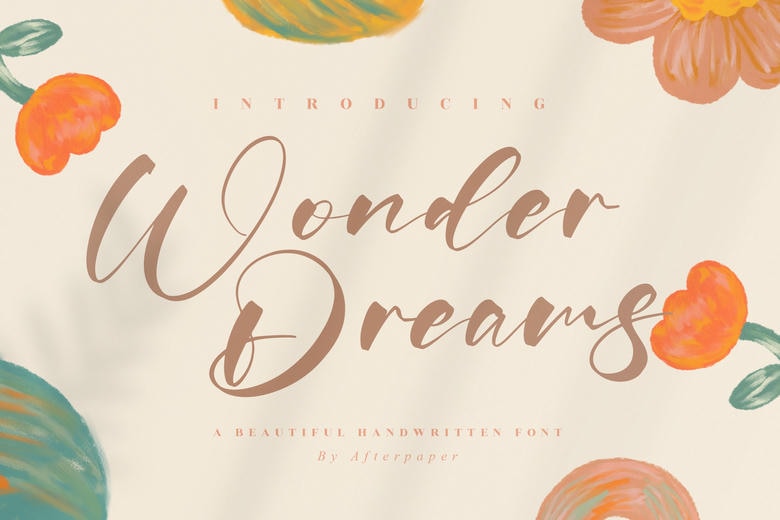
Wonder Dreams Font
Wonder Dreams is a script font with a unique and elegant look. Its style helps your designs stand out. All glyphs and swashes are easy to use.
Wonder Dreams Handwritten Script Font